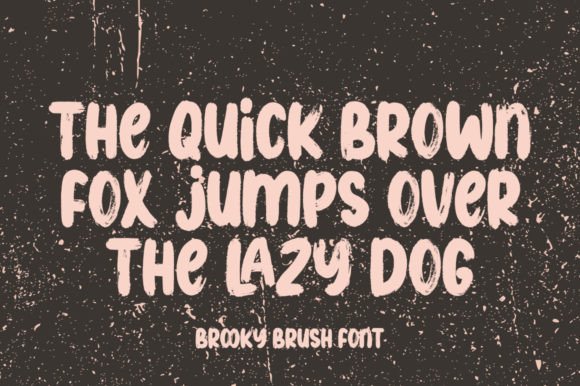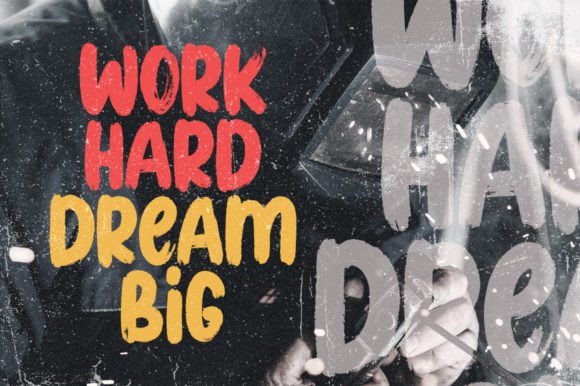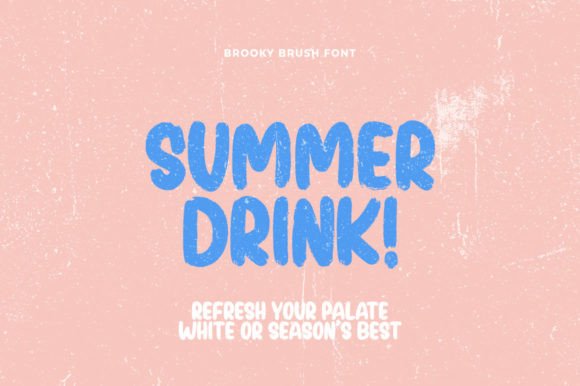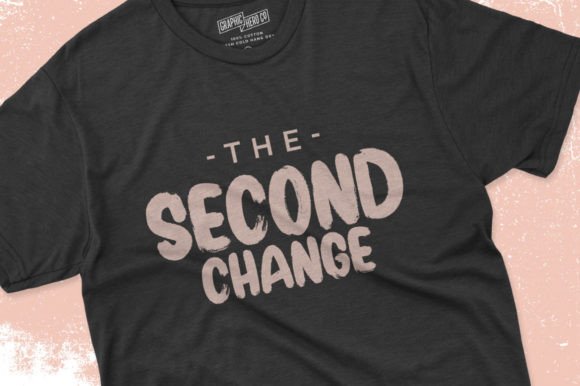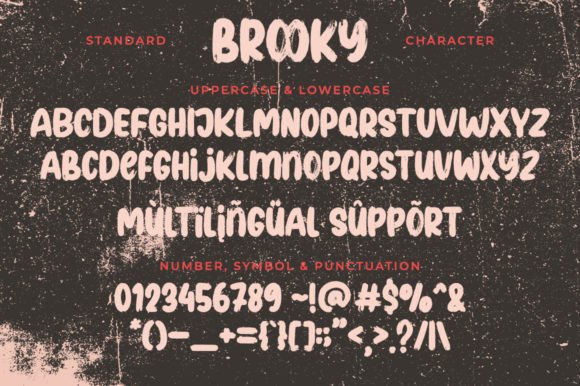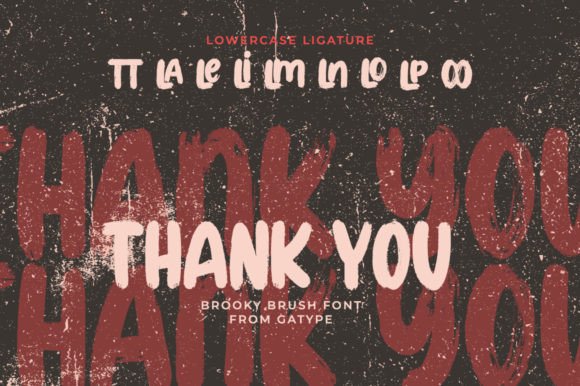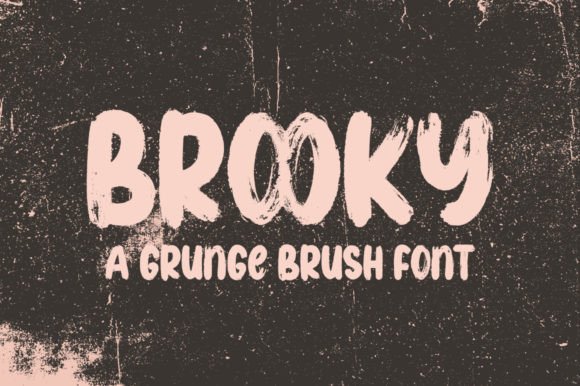
Introducing Brooky Font: The Modern Handwritten Font for Creative Designs
In the world of typography, fonts play a crucial role in making designs stand out. For designers and crafters, finding the perfect font can be a daunting task. However, if you’re looking for a modern, handwritten font that can elevate your designs, look no further than Brooky Font. In this article, we’ll explore the features and benefits of Brooky Font and how it can be used in various design projects.
What is Brooky Font?
Brooky Font is a modern, handwritten font that boasts stylized characters that are both unique and attractive. Its distinctive style makes it an excellent choice for a wide range of modern designs, including clothing, invitations, book titles, stationery designs, quotes, branding, logos, greeting cards, t-shirts, packaging designs, posters, and more.
Key Features of Brooky Font
• Modern and Handwritten: Brooky Font has a fresh and contemporary look, making it perfect for designers who want to add a personal touch to their designs.
• Stylized Characters: The font features stylized characters that are both unique and attractive, allowing designers to create visually appealing designs.
• Versatile: Brooky Font can be used in a variety of design projects, from clothing and invitations to book titles and packaging designs.
• Easily Readable: Despite its stylized characters, Brooky Font is easily readable, making it perfect for designs that require a clear and concise message.
Benefits of Using Brooky Font
Using Brooky Font in your designs can have several benefits. For one, it can help you create visually appealing designs that stand out from the crowd. Additionally, the font’s versatility means that you can use it in a wide range of design projects, from print designs like brochures and posters to digital designs like social media graphics and website headers.
How to Use Brooky Font in Your Designs
Using Brooky Font in your designs is easy. Here are a few tips to get you started:
• Pair it with Other Fonts: Brooky Font can be paired with other fonts to create a unique and visually appealing design. Try pairing it with a sans-serif font for a modern look or a serif font for a more traditional look.
• Use it for Headings and Titles: Brooky Font is perfect for headings and titles, as its stylized characters can add a touch of elegance and sophistication to your designs.
• Experiment with Colors: Brooky Font can be used in a variety of colors, from bold and bright to soft and pastel. Experiment with different colors to find the perfect look for your design.
Design Ideas Using Brooky Font
Brooky Font can be used in a wide range of design projects. Here are a few ideas to get you started:
• Fashion Designs: Use Brooky Font to create stylish and modern fashion designs, such as clothing labels, fashion posters, and social media graphics.
• Wedding Invitations: Brooky Font is perfect for wedding invitations, as its elegant and sophisticated look can add a touch of romance to your designs.
• Packaging Designs: Use Brooky Font to create eye-catching packaging designs that stand out on store shelves.
• Social Media Graphics: Brooky Font can be used to create engaging social media graphics, such as Facebook posts, Instagram stories, and Twitter headers.
In conclusion, Brooky Font is a modern, handwritten font that can elevate your designs to the next level. Its stylized characters, versatility, and readability make it an excellent choice for a wide range of design projects. Whether you’re a designer or crafter, Brooky Font is a great addition to your font collection.